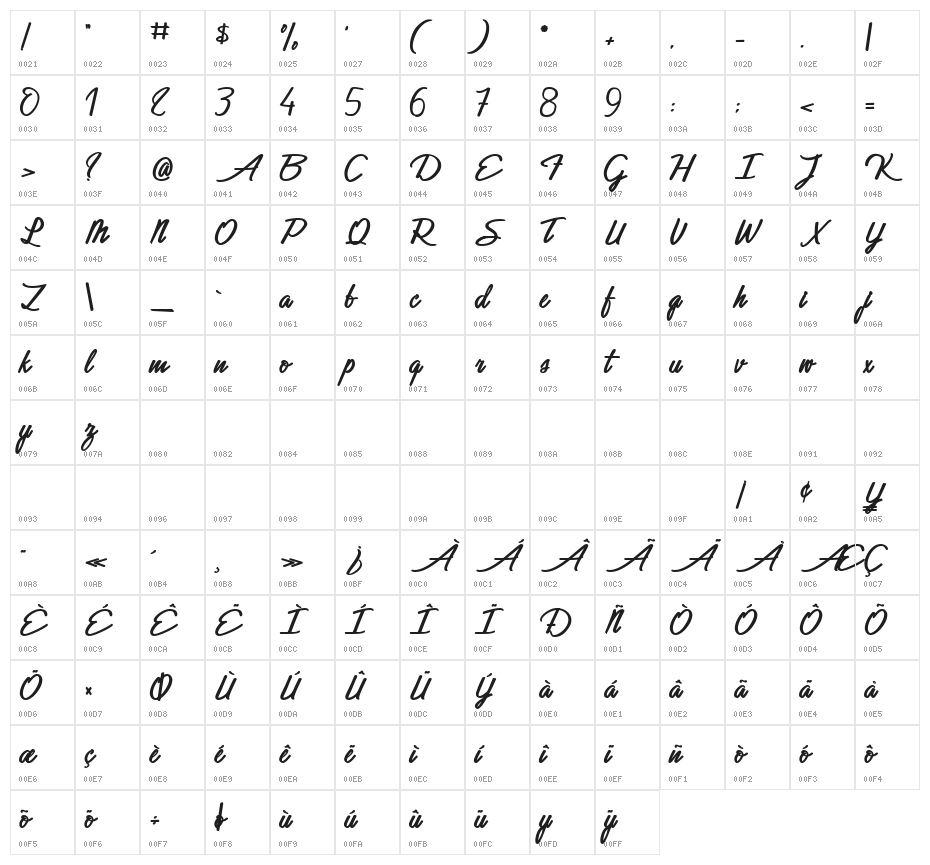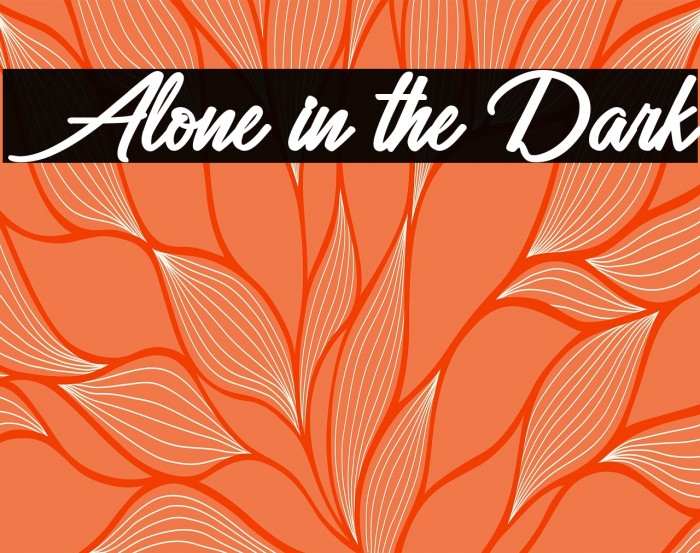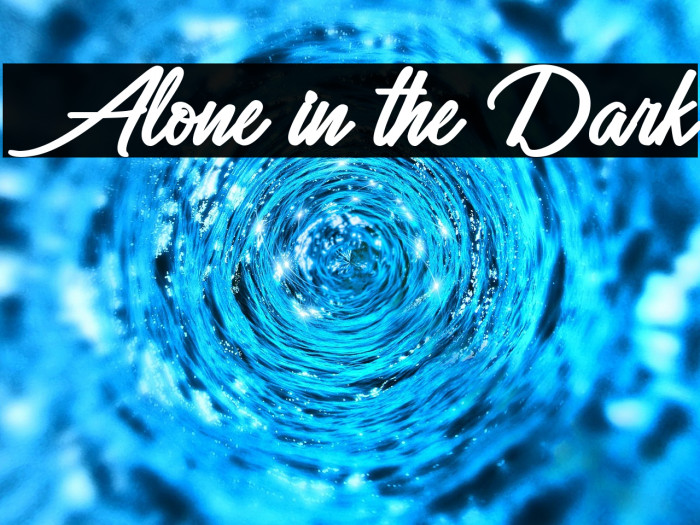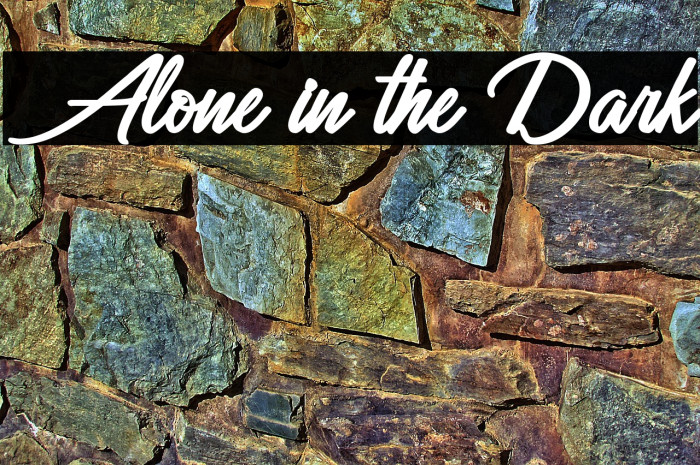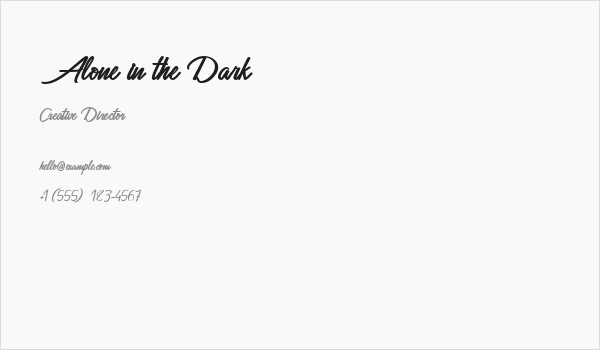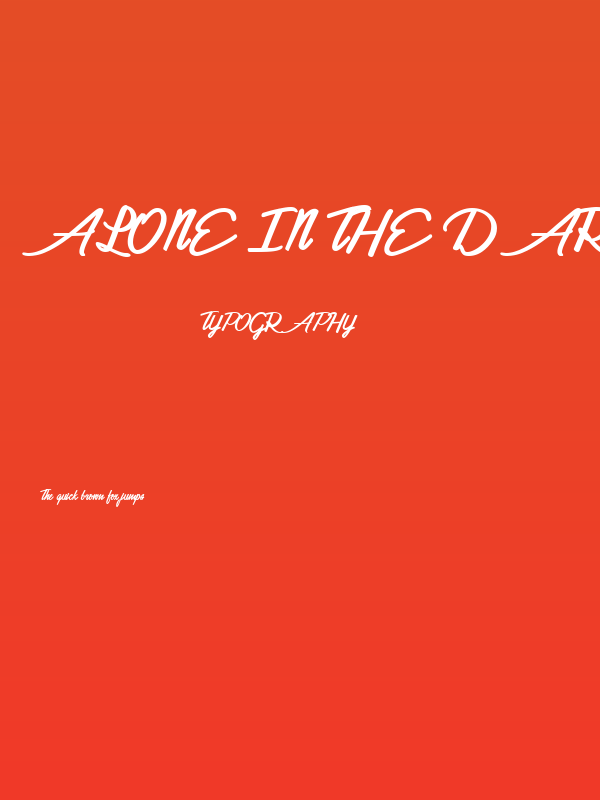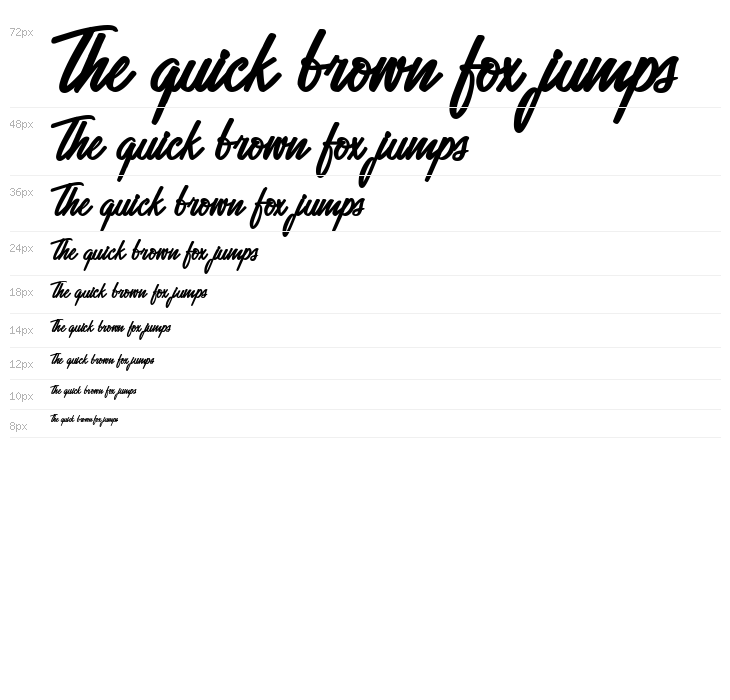
Alone in the Dark Font
Alone in the Dark Description
This font exudes a dynamic and expressive style, characterized by its fluid, cursive script that mimics the elegance of handwritten calligraphy. The uppercase letters are bold and sweeping, with a slight slant that adds a sense of motion and grace. The lowercase letters maintain a consistent flow, connecting smoothly in a way that enhances readability while preserving the artistic flair. The numerals are distinct and stylish, complementing the overall aesthetic. Special characters are crafted with the same attention to detail, ensuring a cohesive look across all glyphs. This font is ideal for projects that require a personal touch, such as invitations, greeting cards, or branding materials that aim to convey sophistication and creativity.